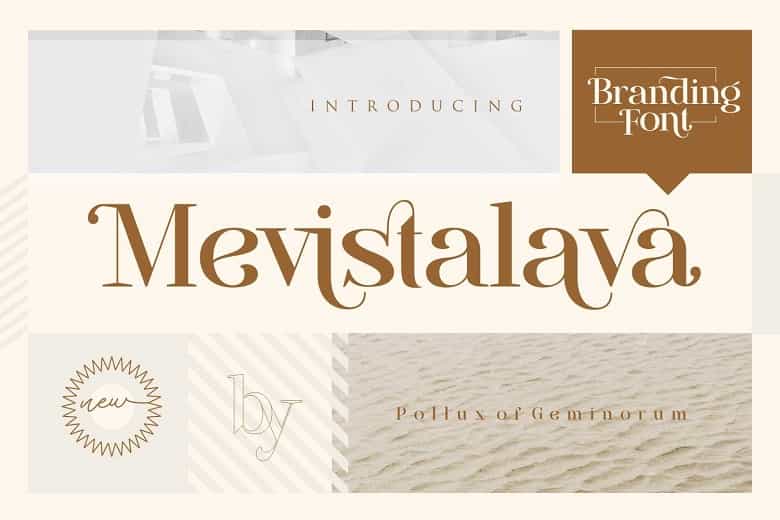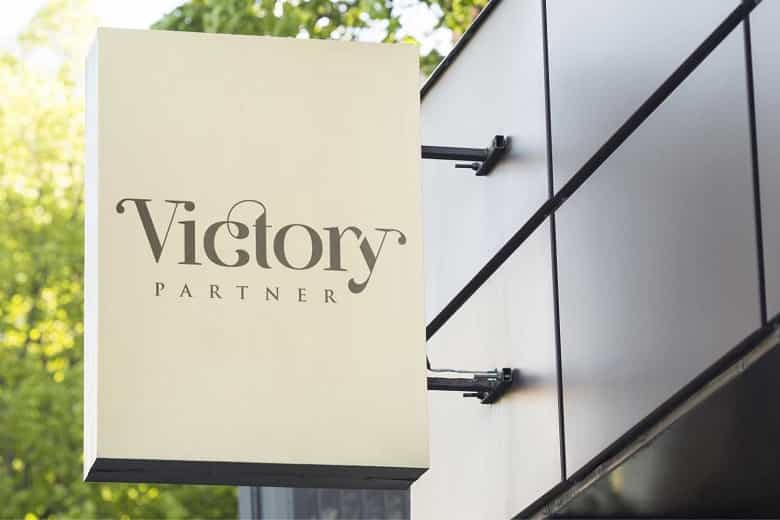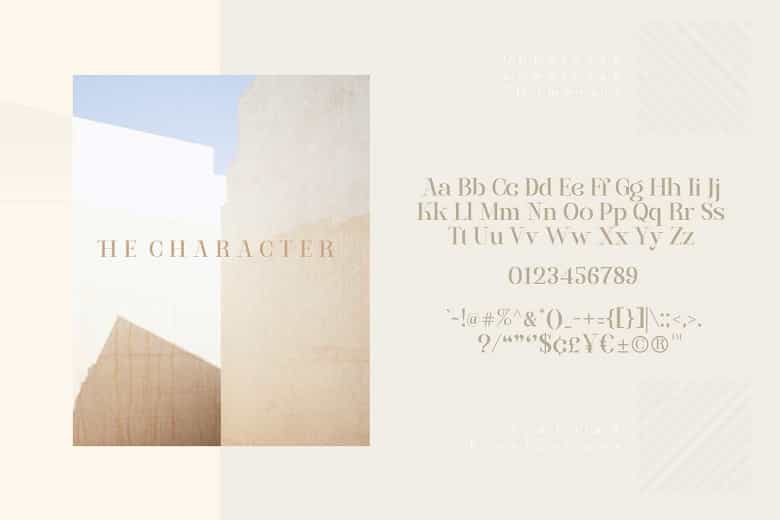
Mevistalava is a beautiful and modern vintage serif font designed by Pollux of Geminorum with lovely ligatures, Unique options, multilingual support and perfect kerning. On any topic, this font will be a great addition to your fonts’ collection, as it may enhance any design.